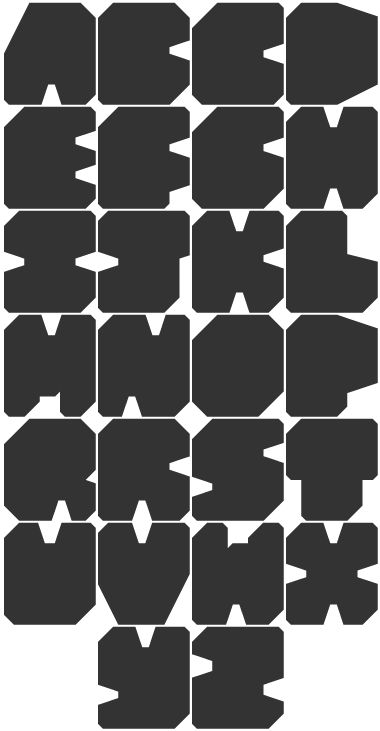
• My mother asked me to design a non-intersecting (no counters) polygonal alphabet for her to use as a teaching tool in her fourth graders’ math class. Of course, I immediately thought of fontstruct!
Here is a (somewhat refined) departure/sequel to the example design I created to help inspire their projects. :)
Alternates are included in the lowercase. Just letters for now...
Here’s the fontstruction I created for my mom’s class. It’s a very different design, largely out of respect for the original brief.
This looks quite organic despite its origins. The alternates are a very nice touch. My mother is a (former) maths teacher too!
The photoshoppery defuses the stunning impact of a topnotch design. Cease and desist with those alluring filters! You can't do better than black and white. Shall I go take a jump now?
@intaglio: you are spot on about my excessive (and in this case exceedingly lazy) photoshop chicanery. sample rectified – now all i need is a decent name for this thing.
very black industrial ;) love this one
The font looks very juicy, maybe you could try a tiling with it. (Incidentally, my wife is also a teacher of mathematics at a high school. I think there are a few women involved in mathematics teaching near some of us. A warm greeting for them.)